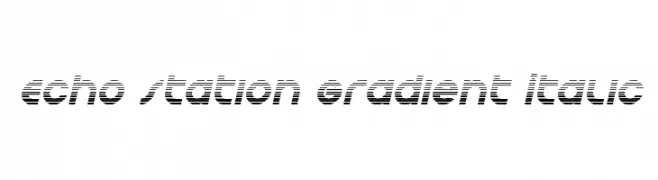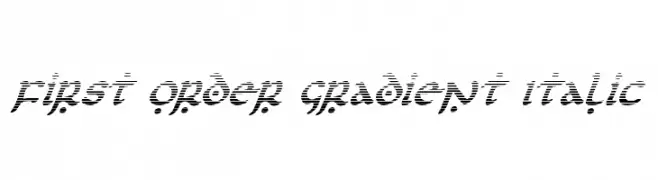
A futuristic italic font with a gradient effect created by horizontal lines.
A modern, geometric font with a gradient effect created by horizontal lines.
A modern, italicized font with a gradient line effect for a dynamic look.
A bold, italicized font with a gradient effect and modern style.
A modern italic font with a unique gradient effect and bold, dynamic style.
A bold, futuristic font with a gradient effect and dynamic angular shapes.
A bold, italic font with a striped gradient effect, exuding speed and modernity.
A bold, italicized font with a gradient effect created by horizontal lines, offering a playful and dynamic style.
A bold, modern font with a gradient effect created by horizontal lines.
A dynamic, italicized font with a gradient stripe effect, perfect for modern designs.